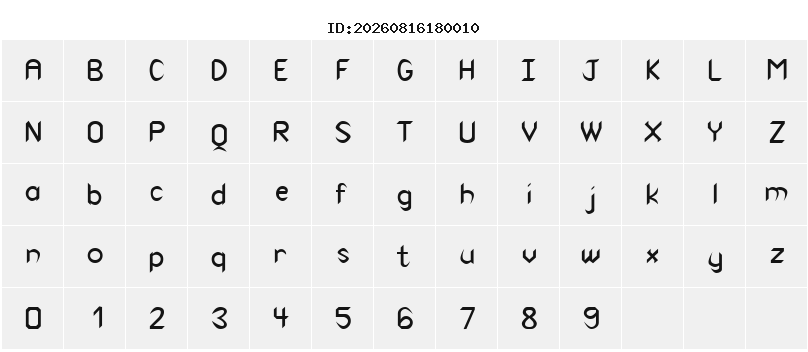
Spike Preview
• Font Name: Spike
• Full Font Name: Spike Normal
About Spike.ttf
Spike.ttf is a modern, elegant sans-serif font designed for ultimate readability and visual harmony. Perfect for branding, headlines, web design, and print materials.